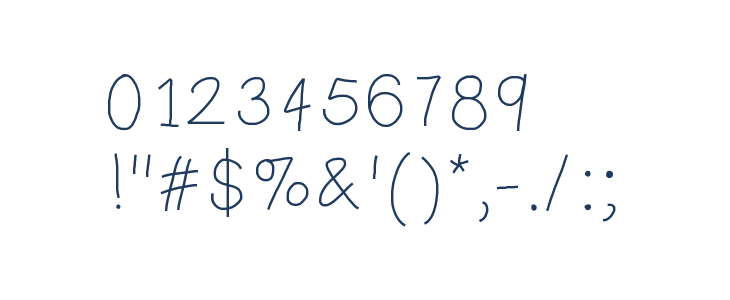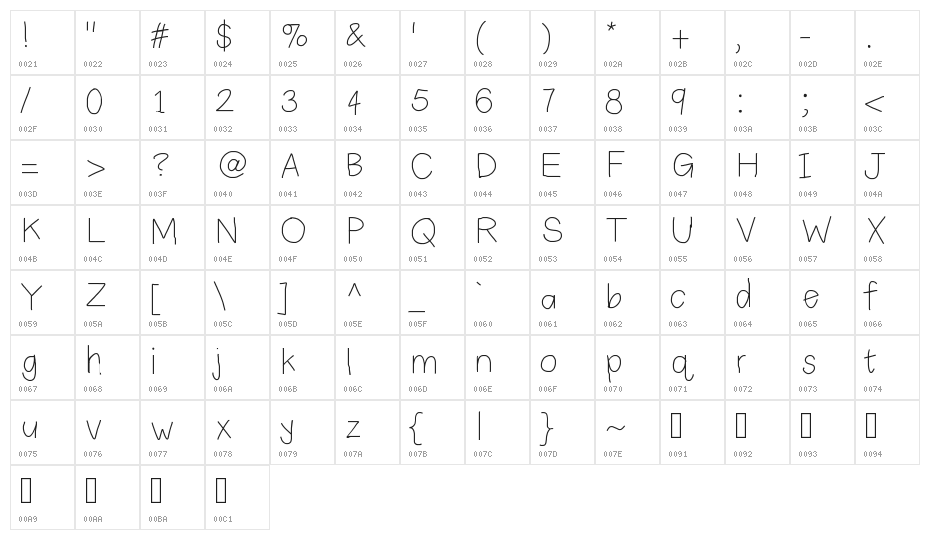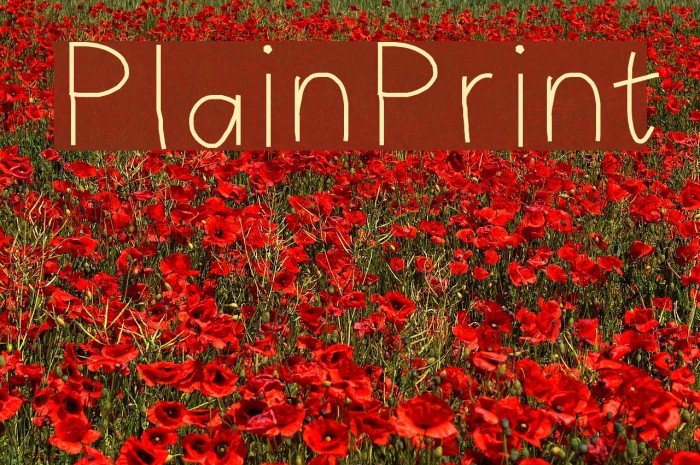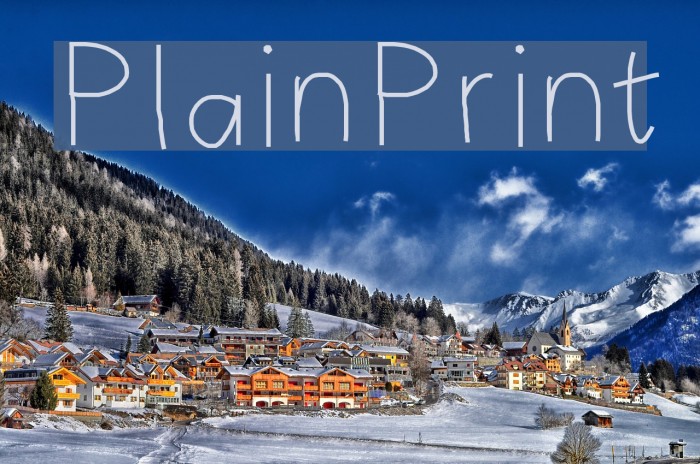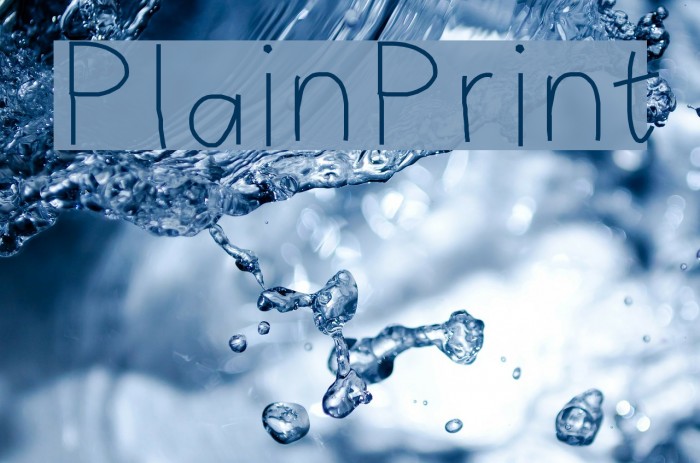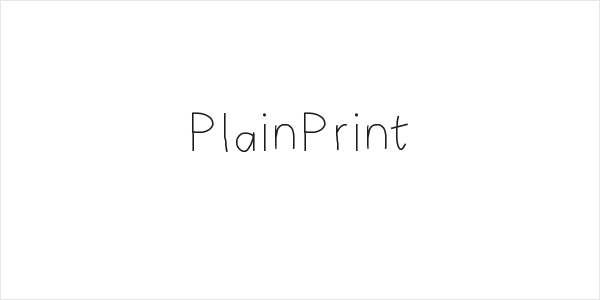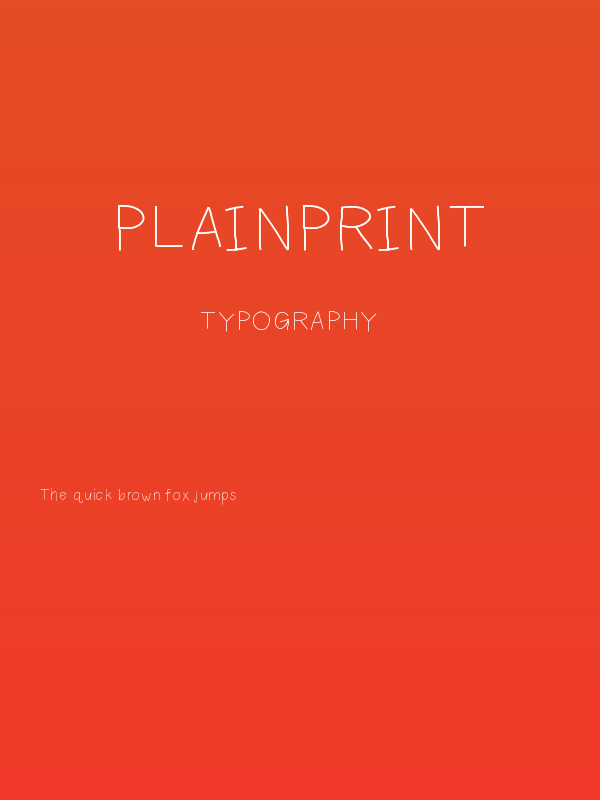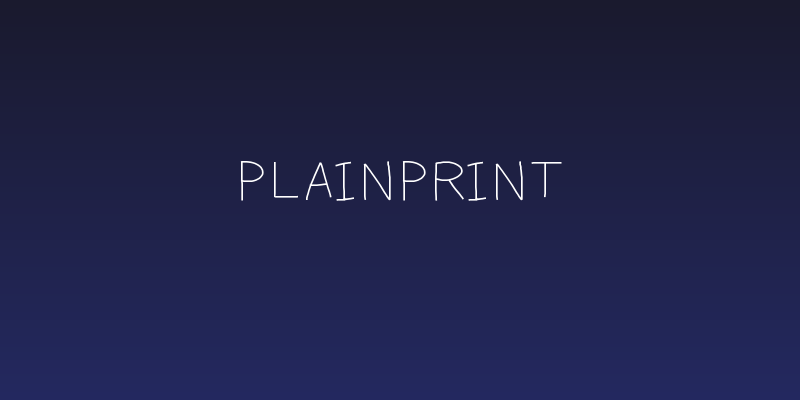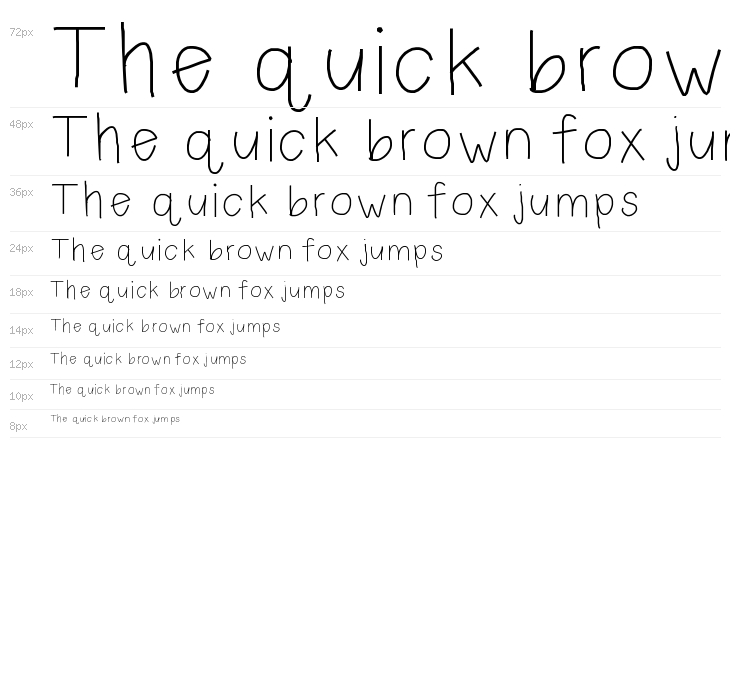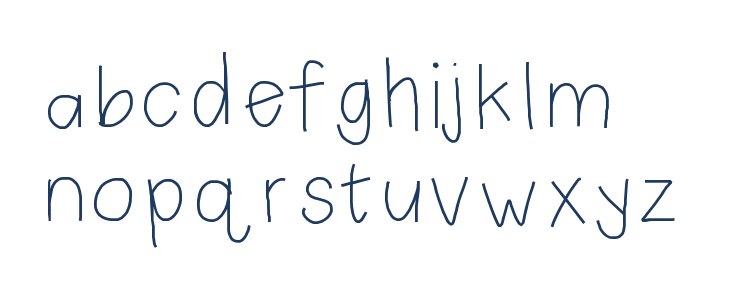
PlainPrint Font
PlainPrint Description
This font features a playful and informal handwritten style, characterized by its irregular strokes and slightly uneven baseline. The letters are rounded and open, giving a friendly and approachable appearance. The uppercase and lowercase characters maintain a consistent style, with a slight tilt that adds to the casual feel. The numerals are clear and legible, matching the overall aesthetic. Special characters are included, maintaining the same whimsical style. This font is versatile for projects that require a personal touch or a relaxed vibe.